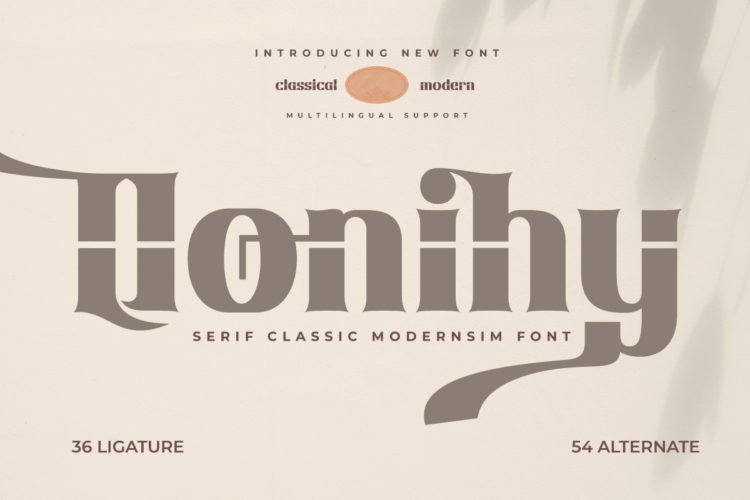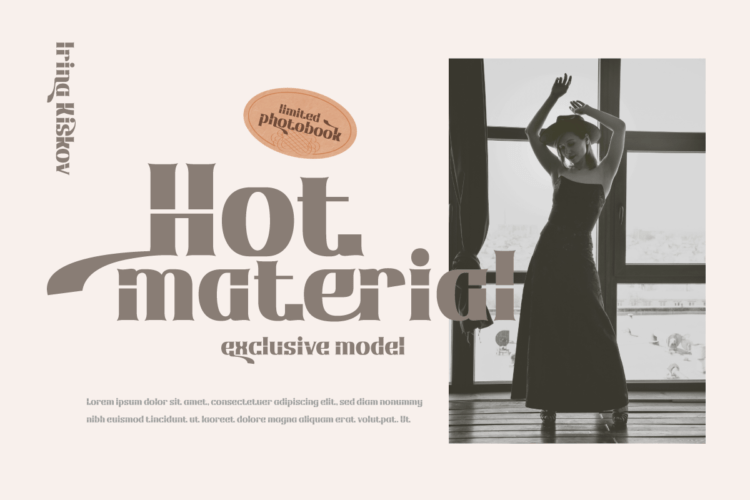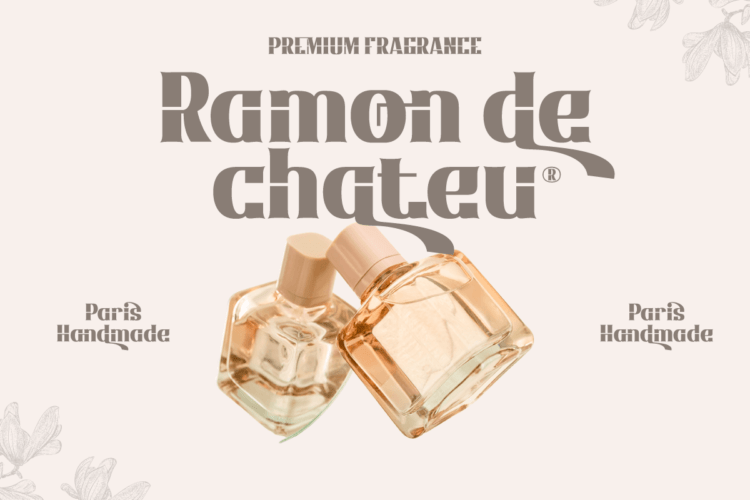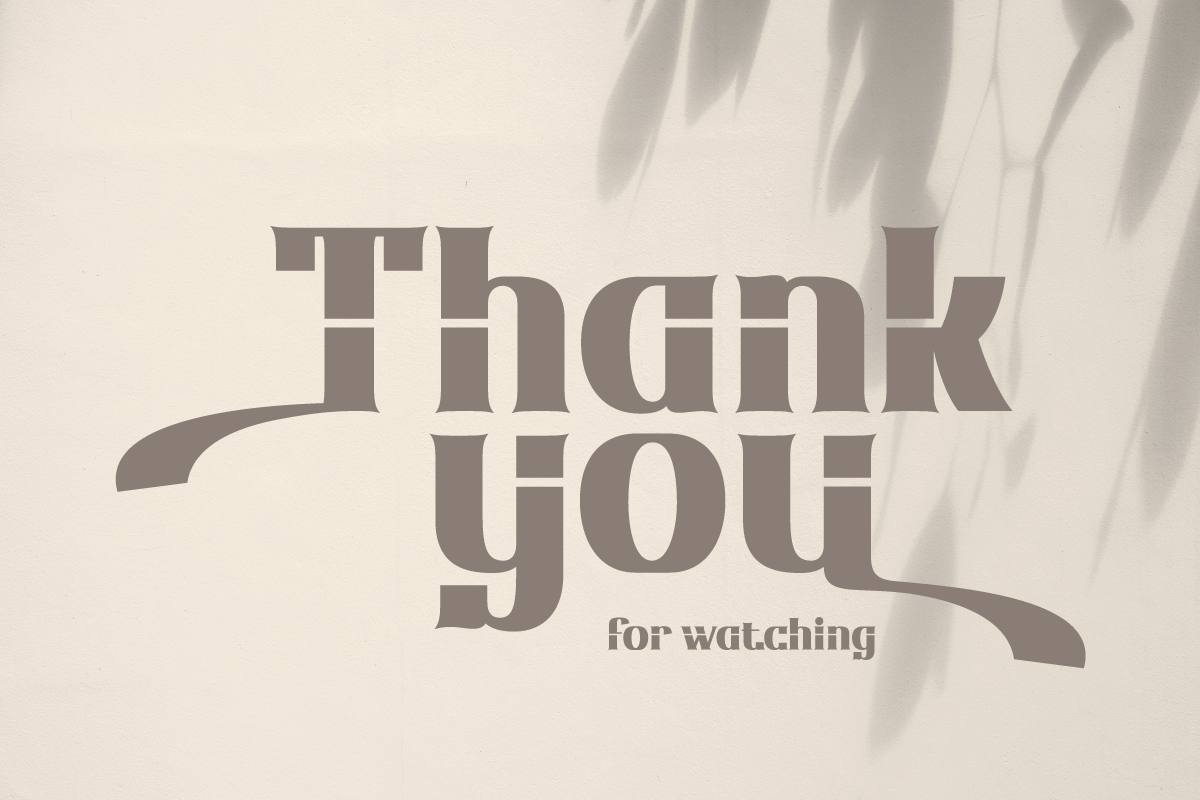
Qonihy | Serif Classic Modernism
Qonihy is a modern serif typeface that is ideal for projects that require a classic yet contemporary look. Its characteristics allow you to express your creativity.
Every character in Qonihy is meticulously designed, with precise and elegant lines that give the impression of luxury and professionalism. This font is appropriate for a wide range of design demands, including book designs, logos, and product packaging.
Qonihy’s combination of narrow and bold serifs creates a strong and dominant impression while remaining easy to read. With the available character alternatives, you can easily customize the appearance of your text and make your projects more creative and unique.
Qonihy’s multilingual support allows you to easily reach a worldwide audience and deliver your content in many languages. So, if you want to create visually appealing and elegant projects, Qonihy is the way to go.
- Alternate, Ligature